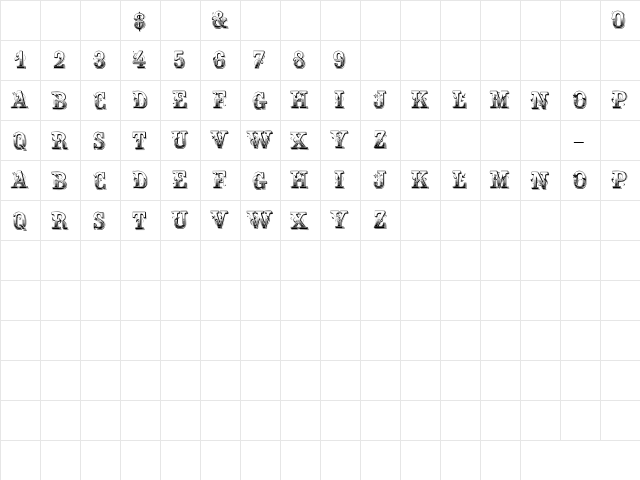
GE Fleurish Engraved Caps Regular
Design Context for GE Fleurish Engraved Caps Typeface
GE Fleurish Engraved Caps is built around its visual character rather than neutral utility — its distinctive forms are designed to make an impression at display sizes.
Font Pairing: Pair with a clean neutral sans-serif for body copy to let GE Fleurish Engraved Caps's character lead without overwhelming the composition.
Pro Tip: Treat GE Fleurish Engraved Caps as the centrepiece of your typographic hierarchy. One strong heading set in a decorative face can carry an entire layout.